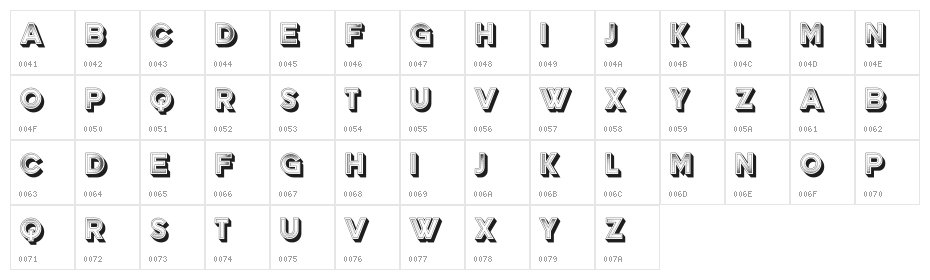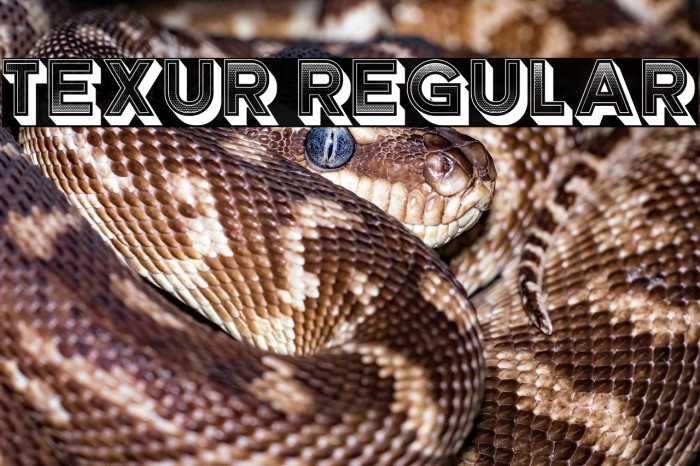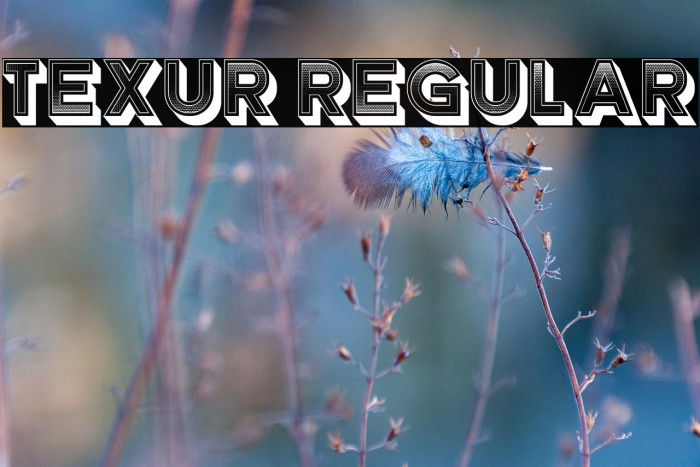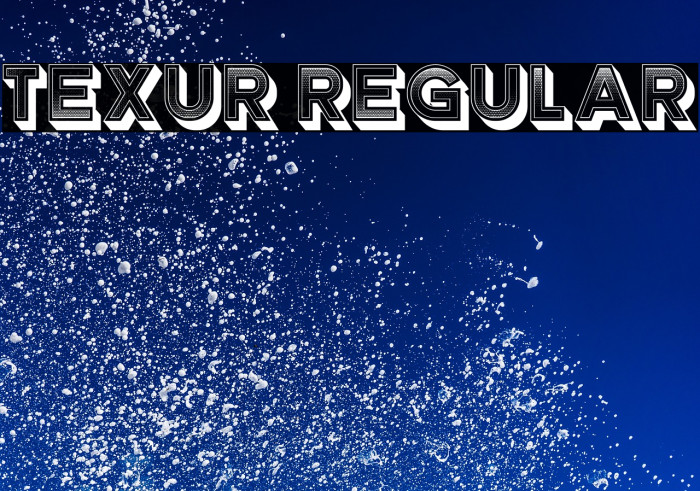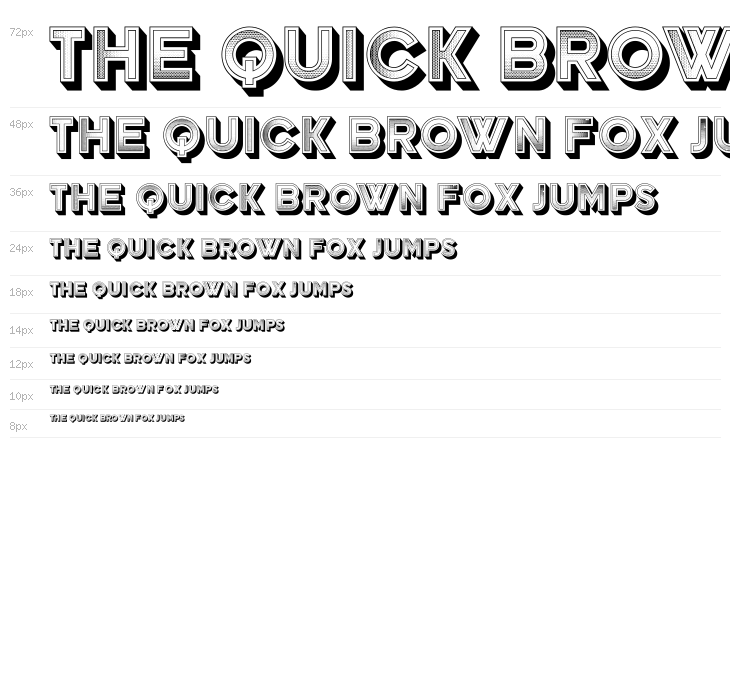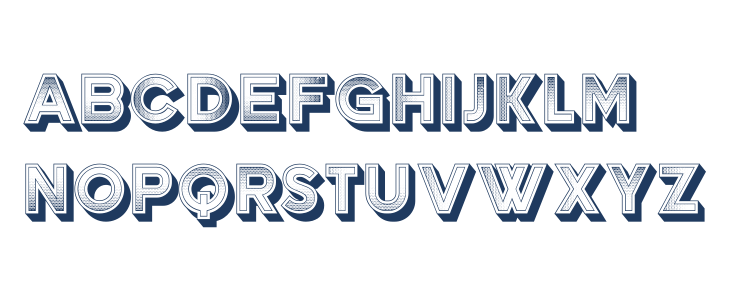
Texur Regular Font
Texur Regular Description
This font features a bold, three-dimensional style with a distinct shadow effect that gives it a striking, impactful appearance. The characters are uppercase, with a geometric and structured form, emphasizing strong lines and angles. The inner detailing includes a dotted texture, adding depth and visual interest. This font is designed to capture attention and convey a sense of boldness and modernity. The shadowing effect enhances the perception of depth, making it ideal for standout designs.
| Proposed Projects | Ideal for posters, headlines, branding, and any design requiring a bold, attention-grabbing typeface. |